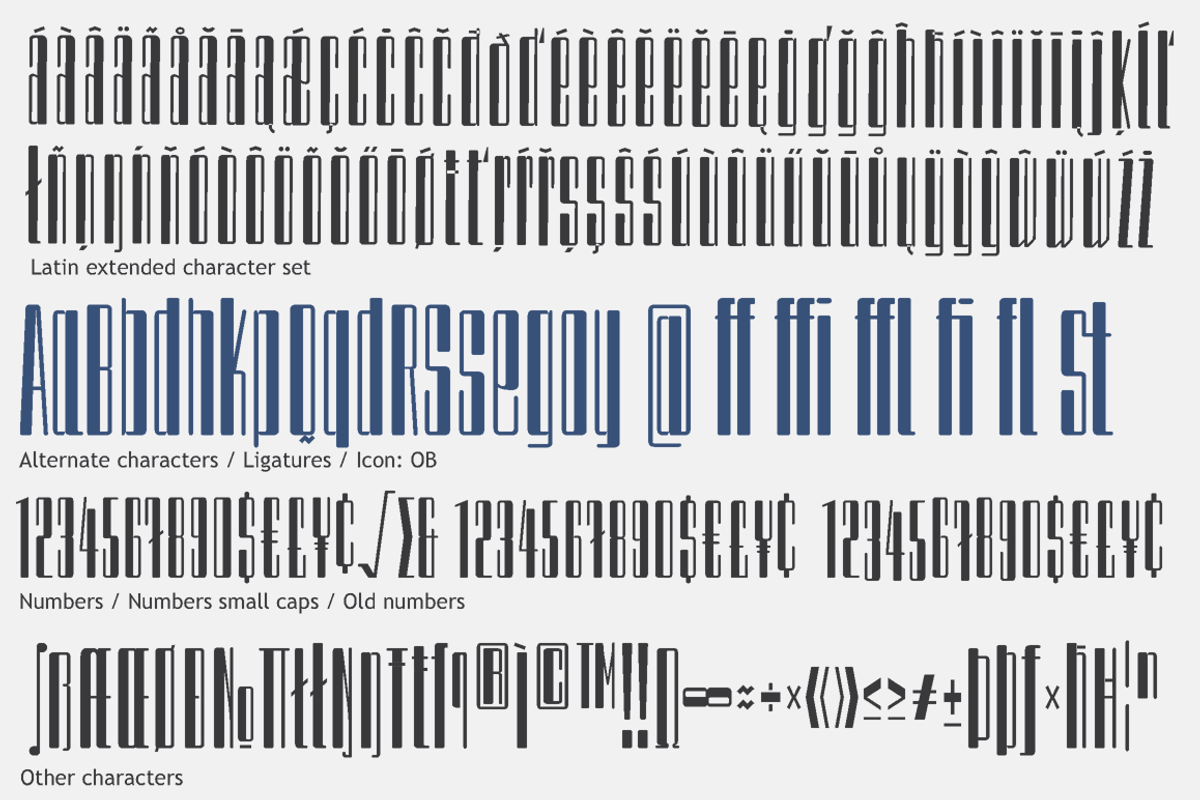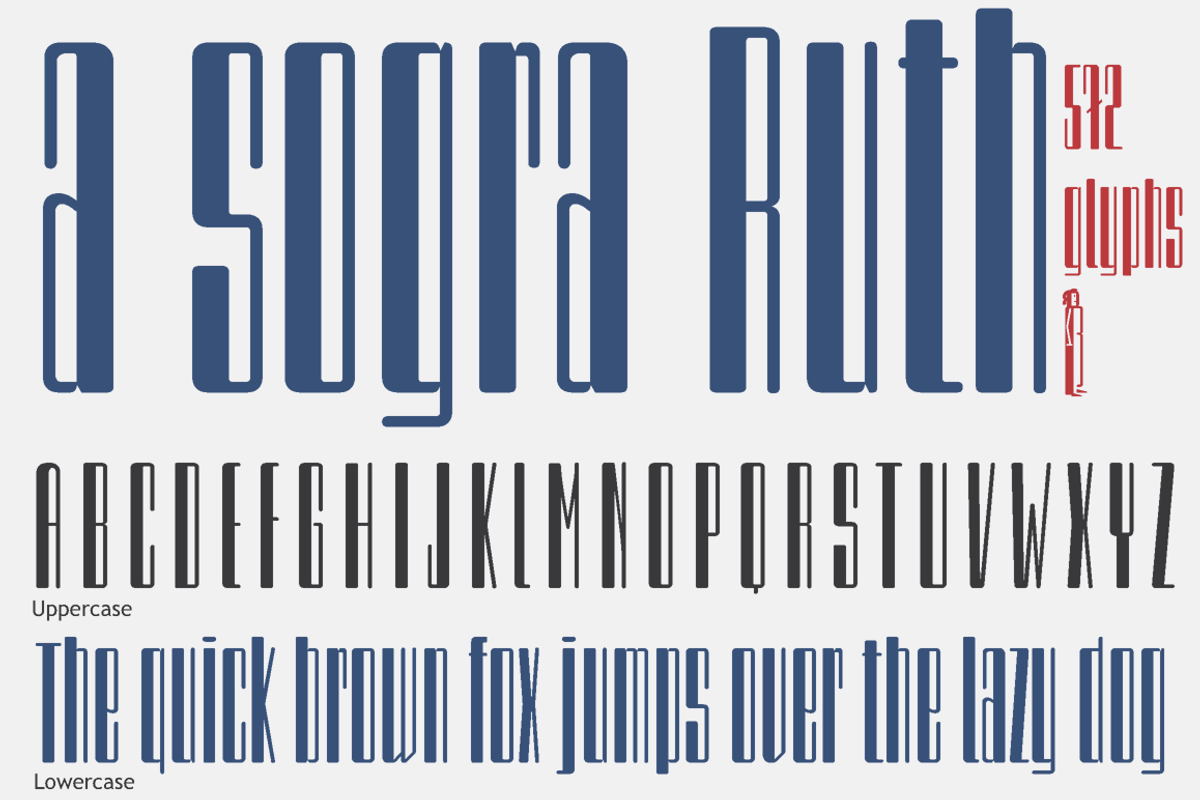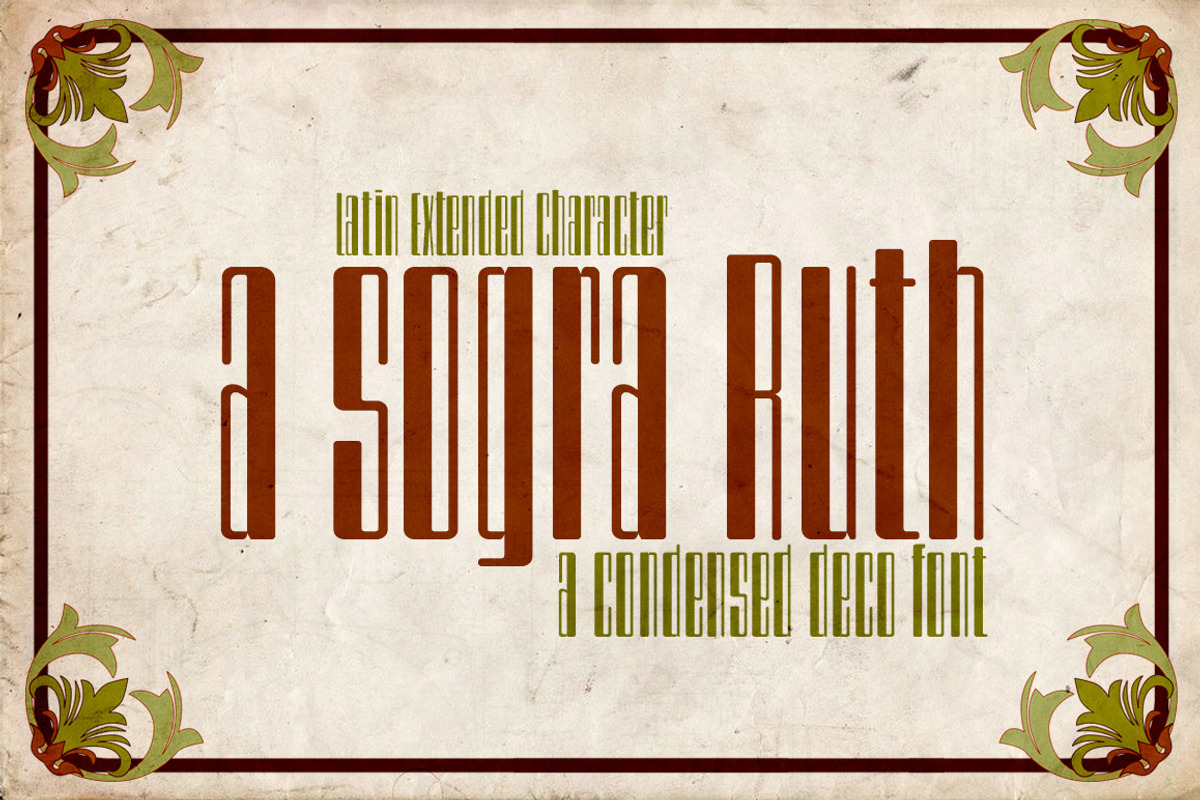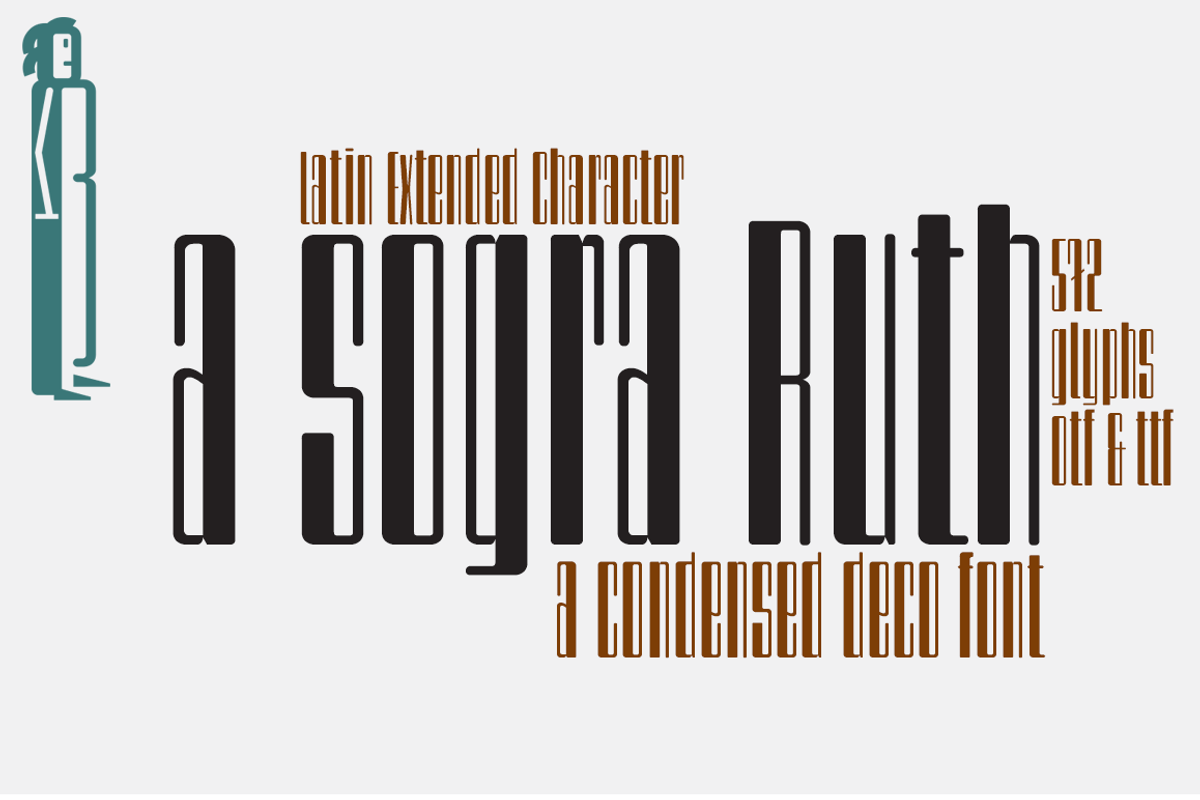
A sogra Ruth -font-
A sogra Ruth -font- by deFharo is a font selected for branding, posters, packaging, typography.
- The Commercial version includes: Latin-Extended & Greek alphabet.
- Alternate characters • Numbers old style • Numbers Small Caps • Ligatures • Fractions • Denominators • Numerators • Slash zero • Currencies.
- a sogra Ruth Extra-condensed
A sogra Ruth -font- by deFharo fits naturally into Branding, posters, packaging, typography.